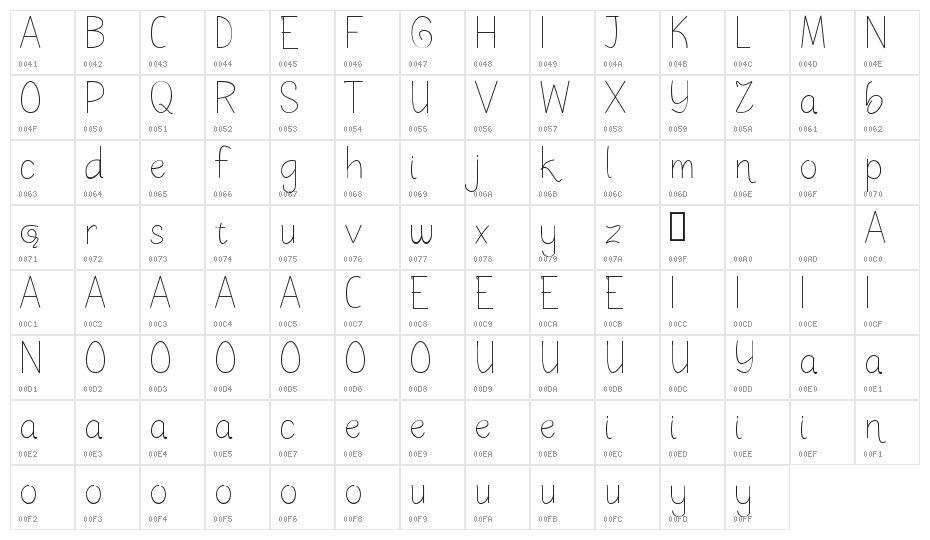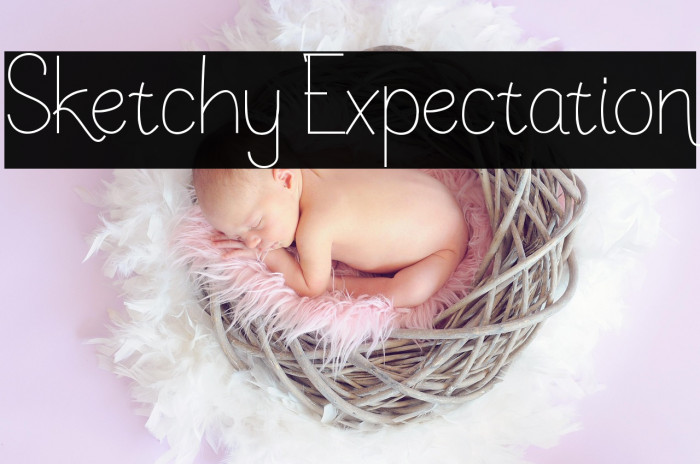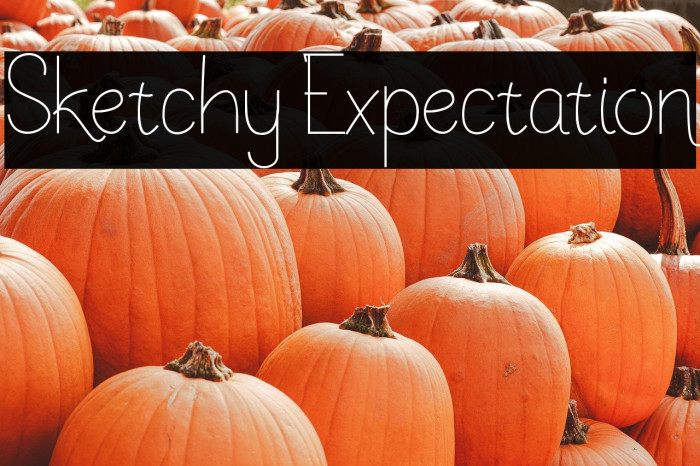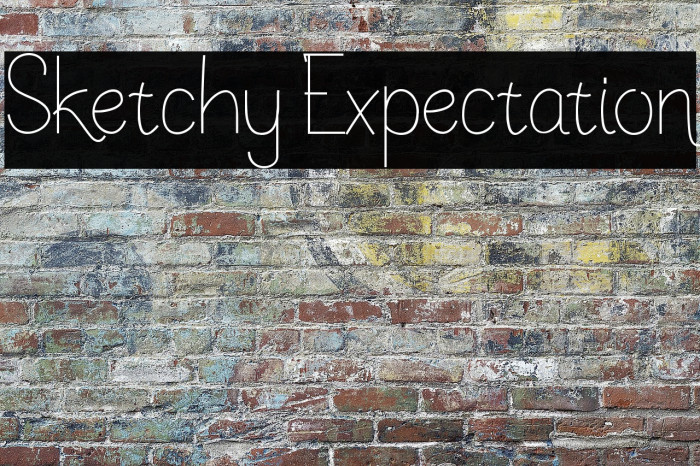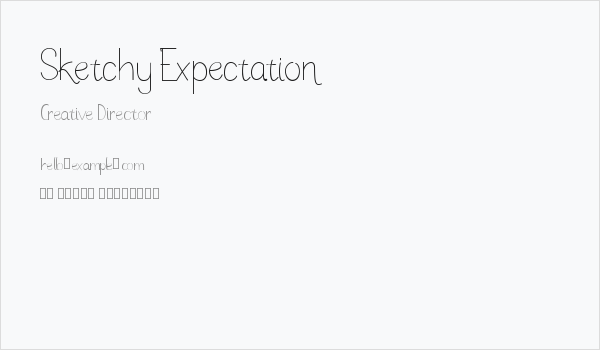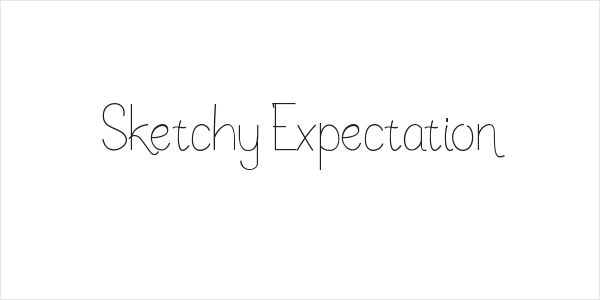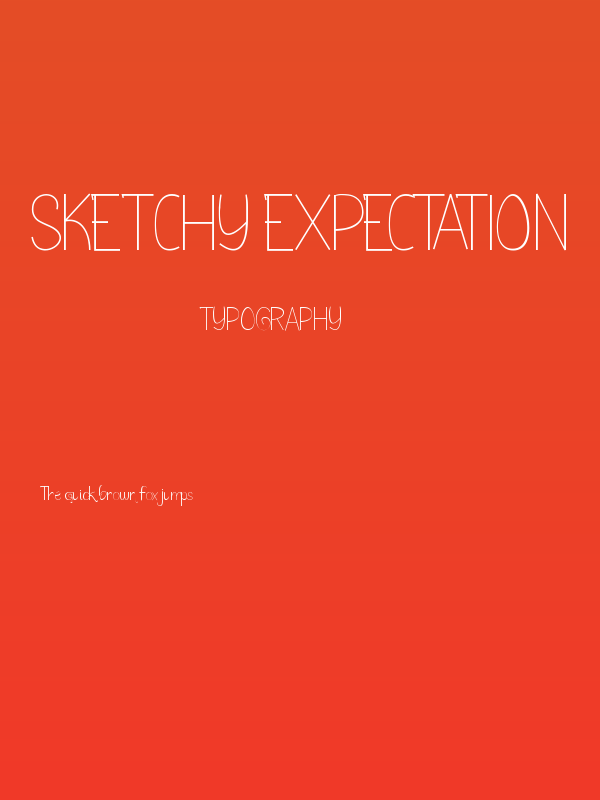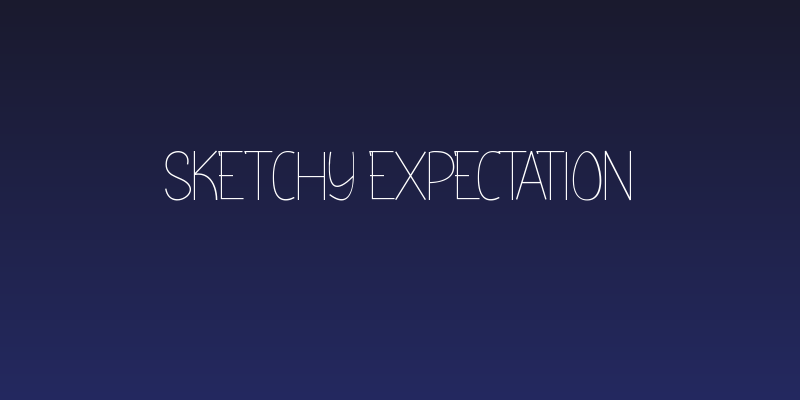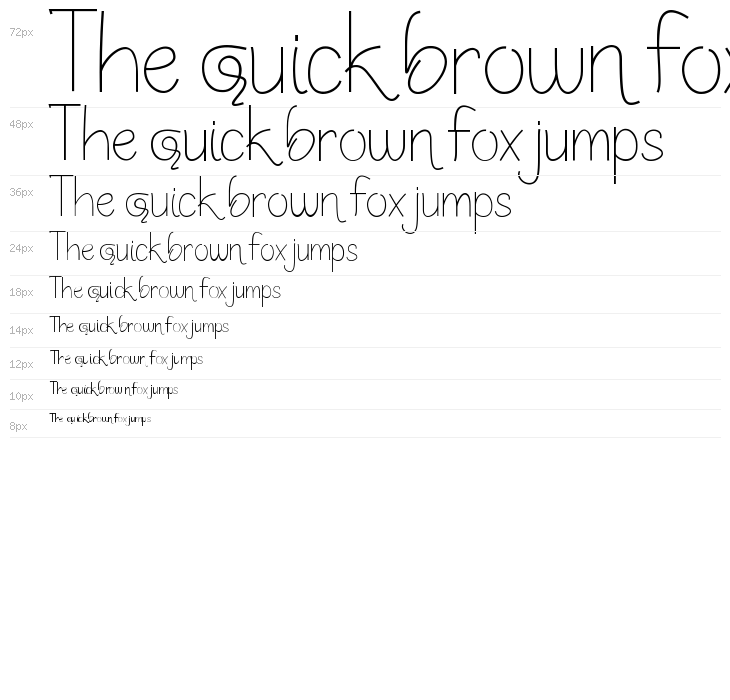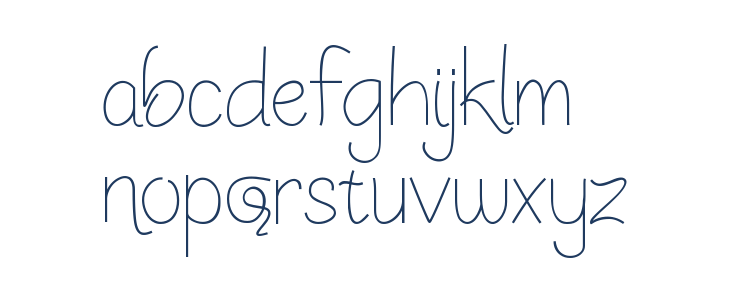
Sketchy Expectation Font
Sketchy Expectation Description
This font features a whimsical and playful style with a hand-drawn appearance. The characters are tall and slender, with a consistent stroke width that gives it a clean and modern look. The uppercase letters have a unique flair, with some characters like 'G' and 'Q' incorporating loops and swirls that add to its quirky charm. The lowercase letters maintain the same playful aesthetic, with rounded forms and slight variations in stroke endings that enhance its casual feel. The numbers and special characters follow the same design principles, ensuring a cohesive look across all glyphs.
| Proposed Projects | Ideal for children's books, playful branding, greeting cards, and creative projects that require a touch of whimsy. |